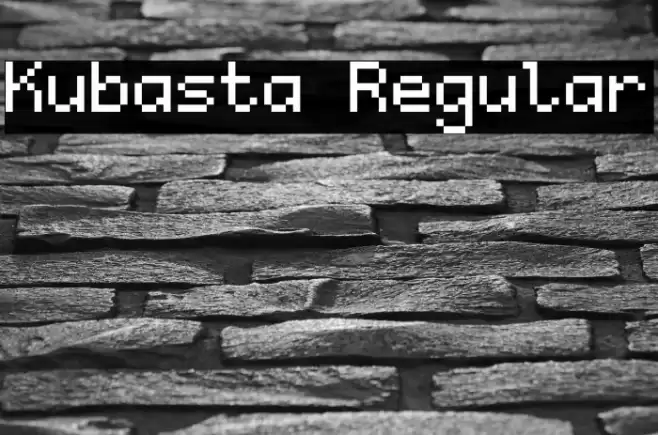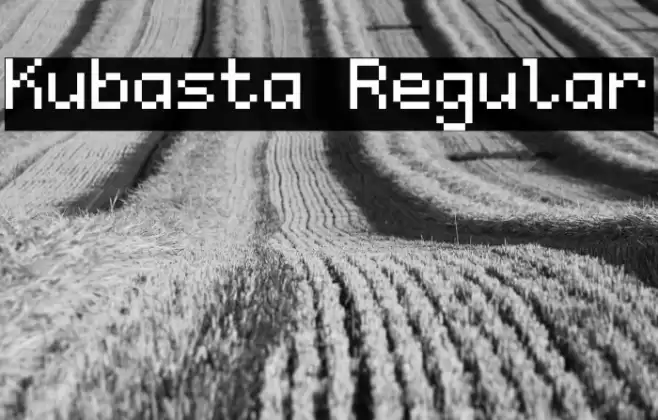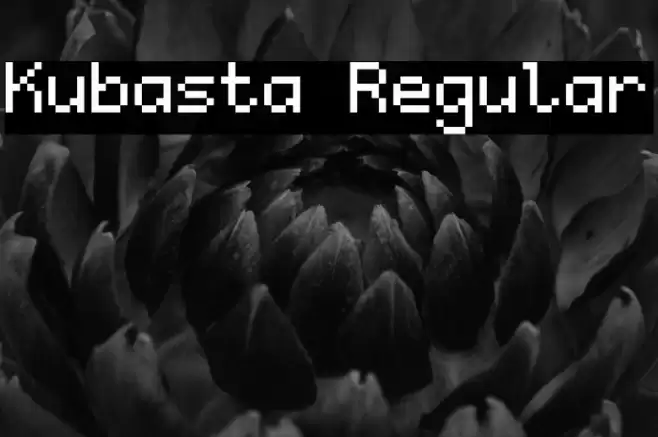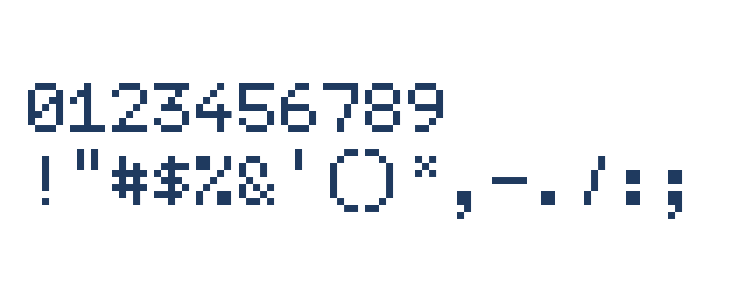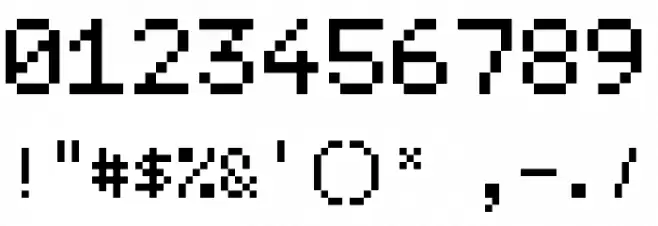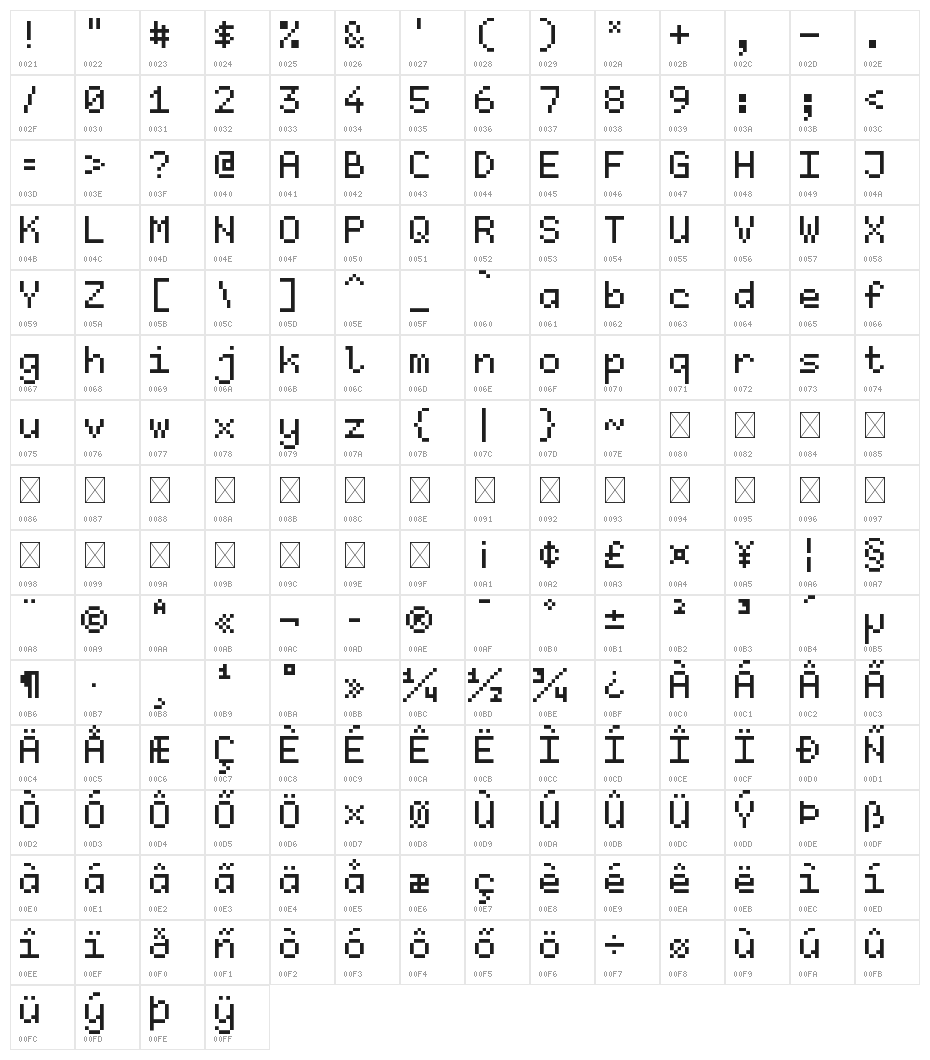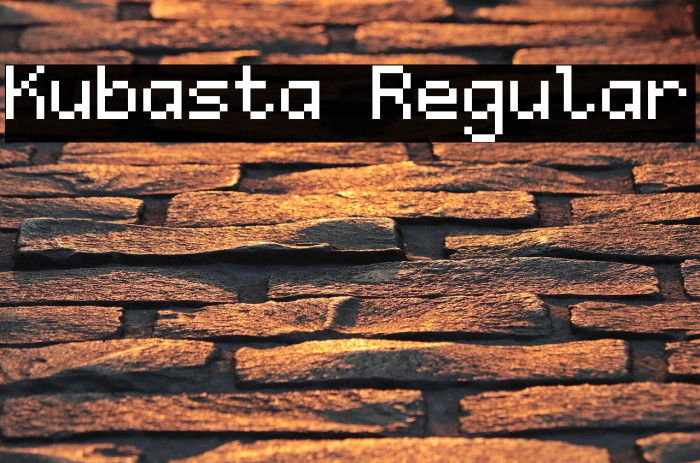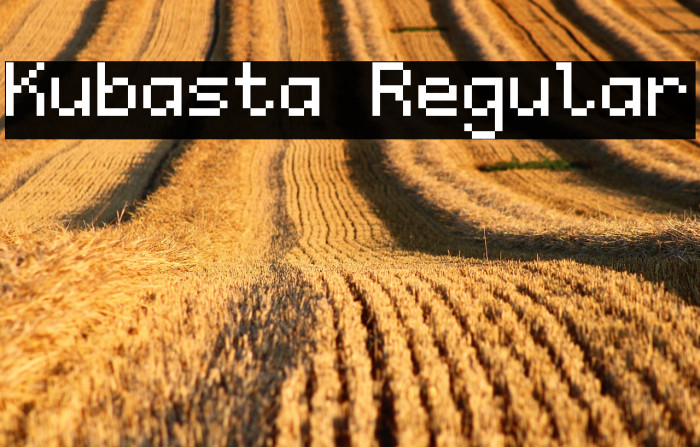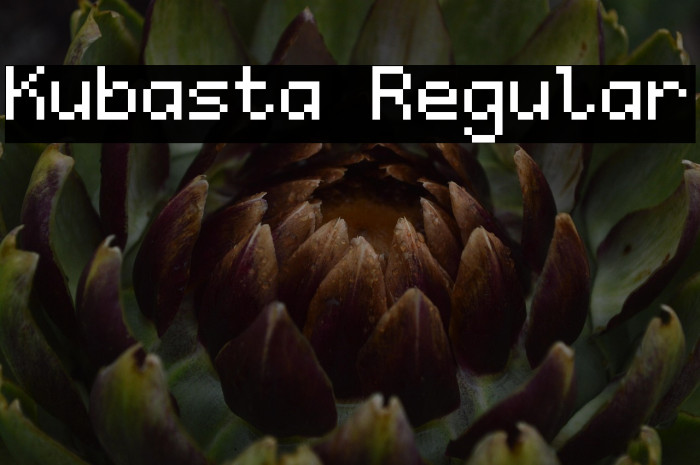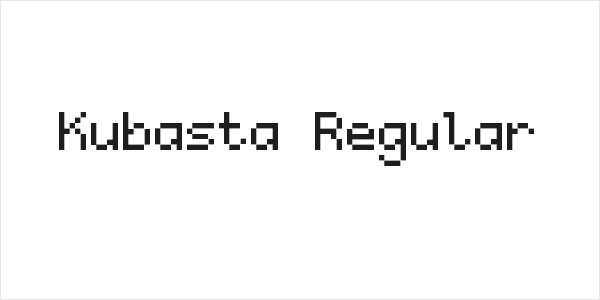
Kubasta Regular Font
Kubasta Regular Description
This font features a pixelated, blocky design reminiscent of early digital or video game typography. Each character is constructed with a grid-like precision, giving it a distinctly retro and technological feel. The uppercase and lowercase letters maintain a consistent height and width, contributing to a uniform appearance. Numbers and special characters follow the same stylistic approach, ensuring a cohesive look across all glyphs. The font's geometric nature makes it highly legible, even at smaller sizes, while its unique style adds a playful yet structured aesthetic.
A pixelated, retro-style font with a blocky, digital appearance from Regular fonts.
- Proposed Projects: Ideal for video game design, retro-themed graphics, digital art projects, and tech-related branding.
- Overall Style: Retro, Digital
- Use Case: Headlines, Logos, Digital interfaces